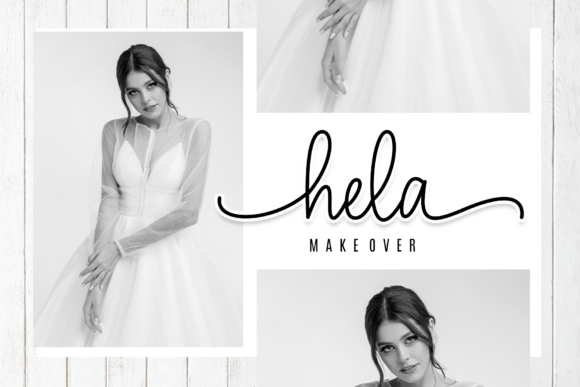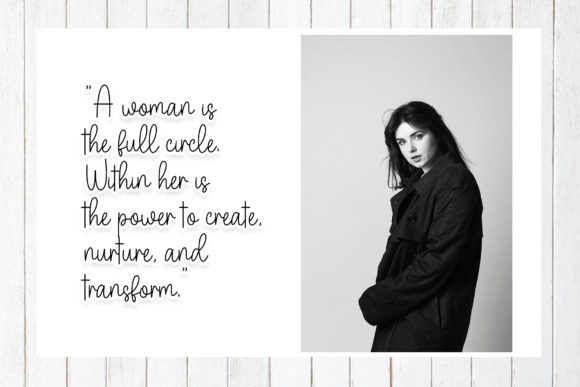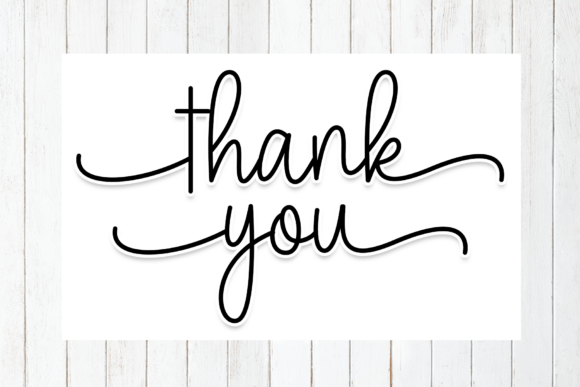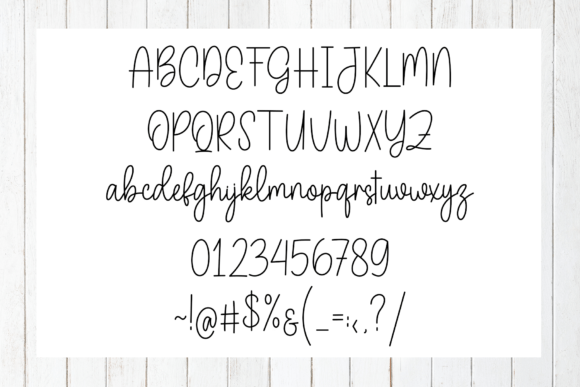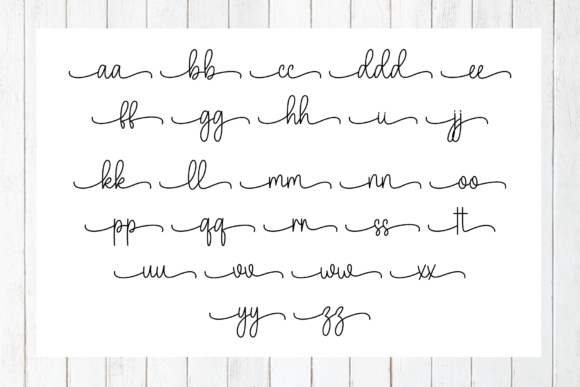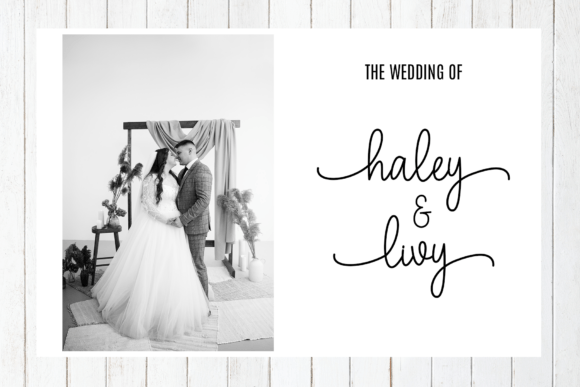
Fully Font: Elevate Your Designs with Delicate Elegance
Are you on the hunt for a font that exudes elegance and sophistication? Look no further than Fully Font, a delicate and elegant handwritten font that’s sure to capture your heart. With its distinct and well-balanced letters, Fully Font is a masterpiece that can elevate your designs to new heights. In this article, we’ll dive into the world of Fully Font and explore its versatility, features, and uses.
The Charm of Fully Font
Fully Font is a beautiful, handwritten font that’s perfect for designers and crafters looking to add a touch of elegance to their work. Its delicate strokes and balanced letters make it a joy to use, and its versatility ensures that it can be applied to a wide range of design projects. Whether you’re creating wedding invitations, branding materials, or social media graphics, Fully Font is sure to impress.
Distinct and Well-Balanced Letters
One of the standout features of Fully Font is its distinct and well-balanced letters. Each letter has been carefully crafted to ensure that it flows seamlessly into the next, creating a beautiful, cohesive look that’s a pleasure to behold. The font’s letters are also generously spaced, making it easy to read and understand.
Incredibly Versatile Style
Fully Font’s incredibly versatile style is one of its greatest strengths. Whether you’re looking to create a romantic and whimsical design or a modern and sleek one, Fully Font can adapt to any style or theme. Its delicate elegance makes it perfect for:
Use Fully Font to Create Spectacular Designs
- Create a stunning wedding invitation suite, complete with delicate floral patterns and elegant typography.
- Design a beautiful brand identity for a boutique or small business, featuring Fully Font as the main typography.
- Develop a cohesive social media aesthetic, using Fully Font to add a touch of elegance to your posts and graphics.
- Unique and distinctive**: Fully Font’s delicate elegance sets it apart from other fonts, making it perfect for designers looking to create unique and eye-catching designs.
- Highly versatile**: Fully Font can be used for a wide range of design projects, from wedding invitations to branding materials.
- Easy to read**: Fully Font’s generously spaced letters and clear typography make it easy to read and understand.